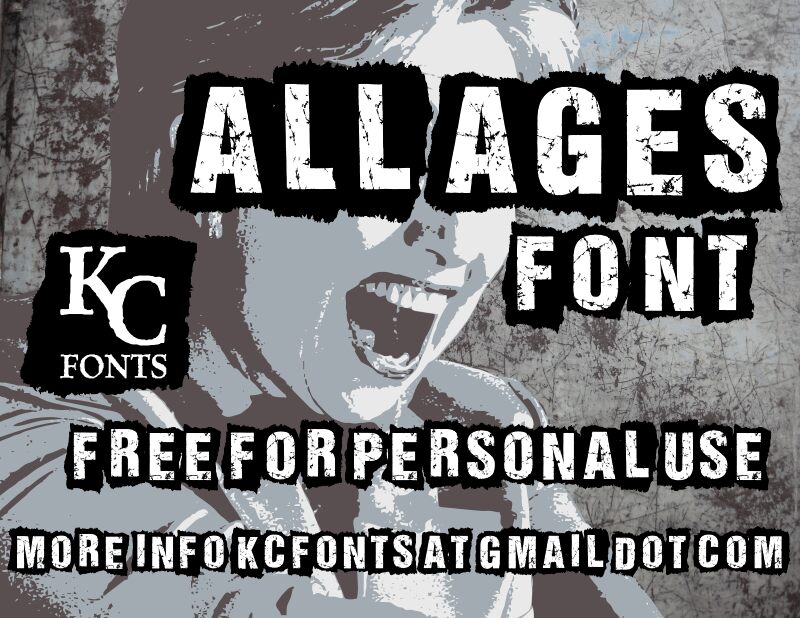
ALL AGES Bold Italic by Kevin Christopher of KC Fonts is a free eroded display font with tall, forceful capitals. Broad strokes and blunt endings give the letters a dense silhouette, broken by sharp scratches and scattered chips. The damage feels splintered and physical.
Concert posters are its clearest fit, since the scraped surface suggests loud, hard-edged music. It also suits streetwear, action-sports merchandise, and industrial packaging. With torn-paper photography or cracked textures, the lettering can become part of the image instead of a separate caption.
The font has three settings:
- Normal consists of ripped paper with the letter knocked out.
- Bold consists only of ripped paper and contains no font.
- Bold Italic is the font intended to be placed on top of the ripped paper. It is not properly kerned for standalone use.